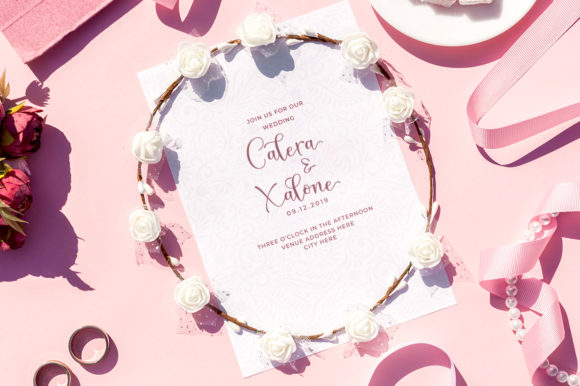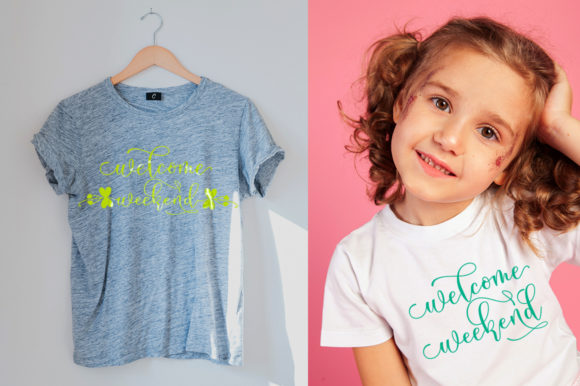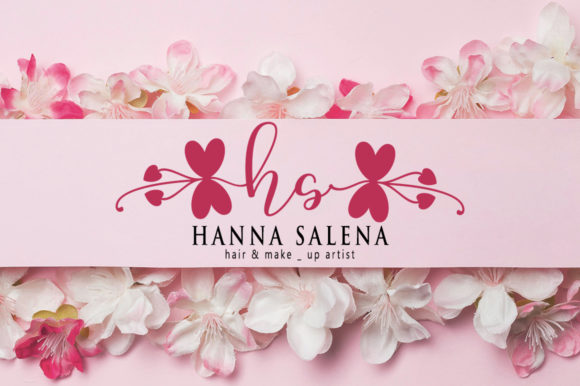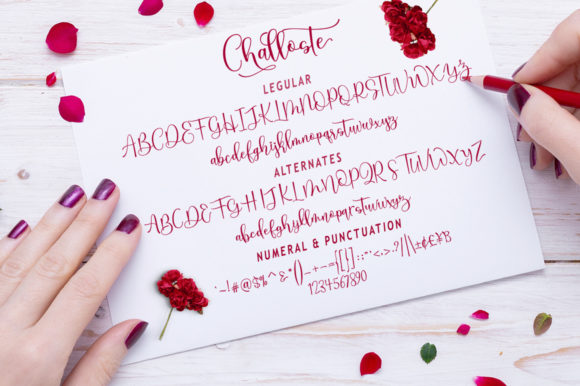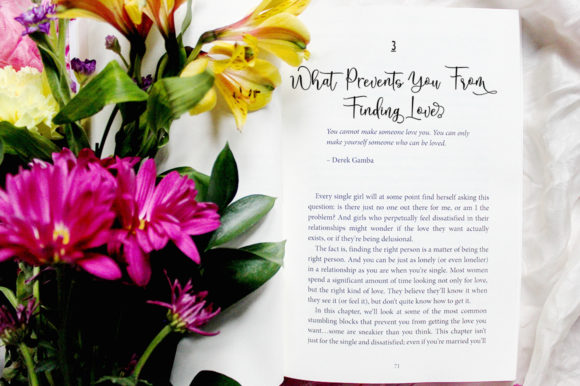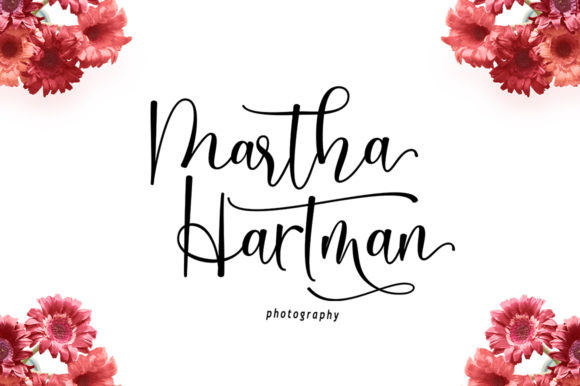
Introducing Challoste Font: Elevate Your Designs with Elegance and Charm
Are you a designer or crafter looking for a font that exudes elegance and charm? Look no further than Challoste Font. This beautiful, handwritten font is perfect for adding a touch of sophistication to any design project. In this article, we’ll explore the features and benefits of Challoste Font, and show you how it can elevate your designs to the next level.
The Charm of Challoste Font
Challoste Font is a stunning, handwritten font that feels equally charming and elegant. Its unique, cursive style makes it perfect for a variety of design projects, from wedding invitations and thank you cards to quotes, greeting cards, logos, and business cards. Whether you’re creating a romantic wedding invitation or a professional business card, Challoste Font is sure to make a lasting impression.
Key Features of Challoste Font
So, what makes Challoste Font so special? Here are just a few of its key features:
- Varying Baseline: The font features a varying baseline, which gives it a natural, handwritten feel. This makes it perfect for designs that need to look personal and unique.
- Smooth Lines: Challoste Font has smooth, flowing lines that make it a joy to read. This makes it perfect for body text, as well as for headings and titles.
- Gorgeous Glyphs: The font comes with a range of gorgeous glyphs, including alternates, swashes, and ligatures. These allow you to add extra flair to your designs and make them truly special.
- Stunning Alternates: Challoste Font also features stunning alternates, which give you even more options for customizing your designs. Whether you want to create a bold, eye-catching headline or a subtle, elegant body text, Challoste Font has you covered.
Using Challoste Font in Your Designs
So, how can you use Challoste Font in your designs? The possibilities are endless! Here are a few ideas to get you started:
- Wedding Invitations: Challoste Font is perfect for wedding invitations, with its elegant, cursive style and romantic feel.
- Thank You Cards: Use Challoste Font to create beautiful, personalized thank you cards that will make your recipients feel special.
- Quotes and Posters: The font’s smooth lines and gorgeous glyphs make it perfect for quotes and posters. Use it to create inspiring, eye-catching designs that will grab attention.
- Greeting Cards: Challoste Font is also great for greeting cards, with its friendly, approachable feel.
- Logos and Business Cards: Use Challoste Font to create professional, elegant logos and business cards that will make your business stand out.
Why Choose Challoste Font?
So, why should you choose Challoste Font for your design projects? Here are just a few reasons:
- Elegant and Charming: Challoste Font is a truly elegant and charming font that will add a touch of sophistication to any design.
- Versatile: The font is versatile and can be used in a wide range of design projects, from wedding invitations to business cards.
- High-Quality: The font is high-quality and comes with a range of gorgeous glyphs and alternates.
In conclusion, Challoste Font is a beautiful, elegant font that is perfect for designers and crafters looking to add a touch of sophistication to their design projects. With its charming, handwritten style, PUA encoding, and range of gorgeous glyphs and alternates, Challoste Font is the perfect choice for any design project that needs a personal touch. So why not give it a try and see the difference it can make?